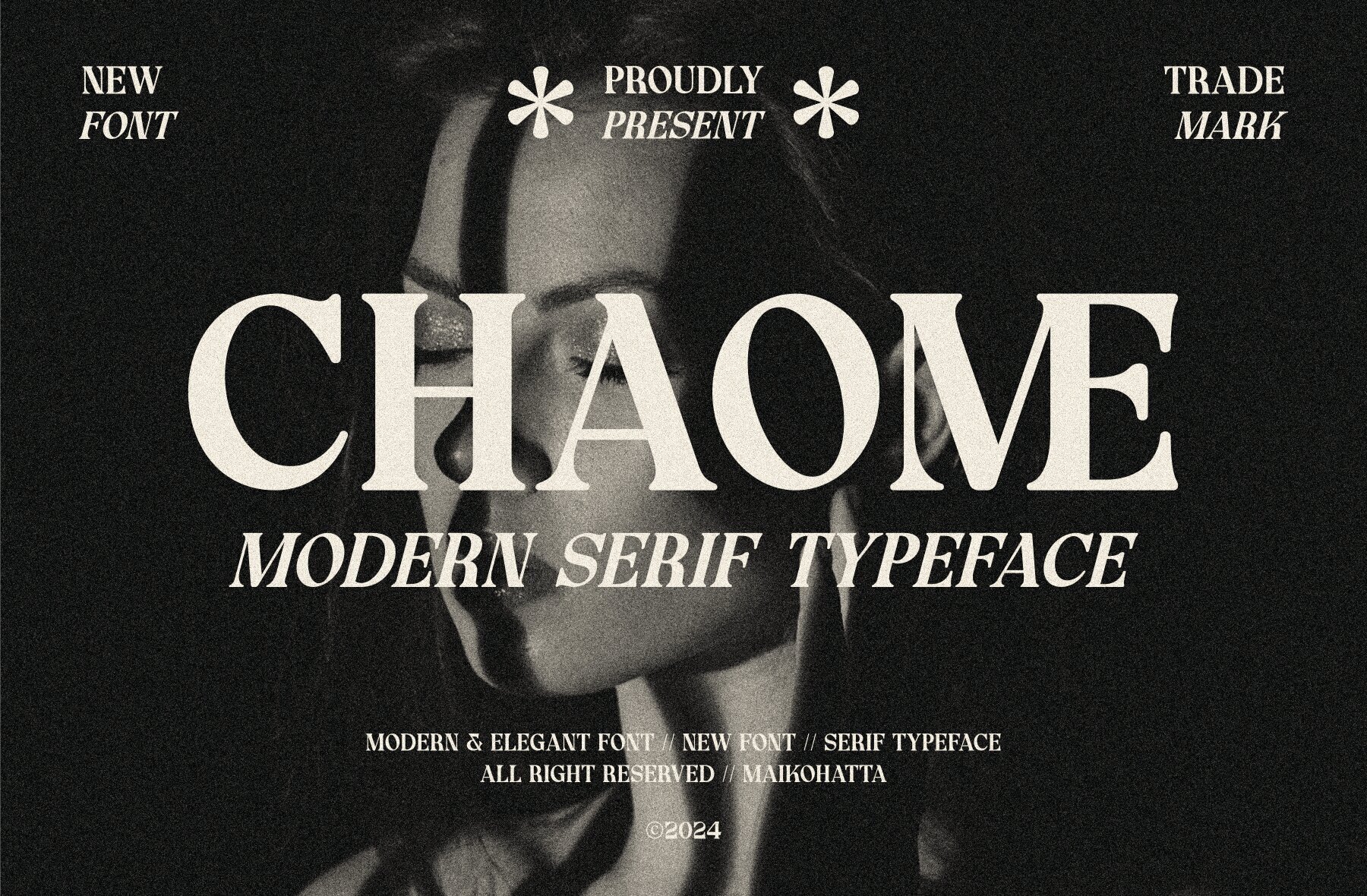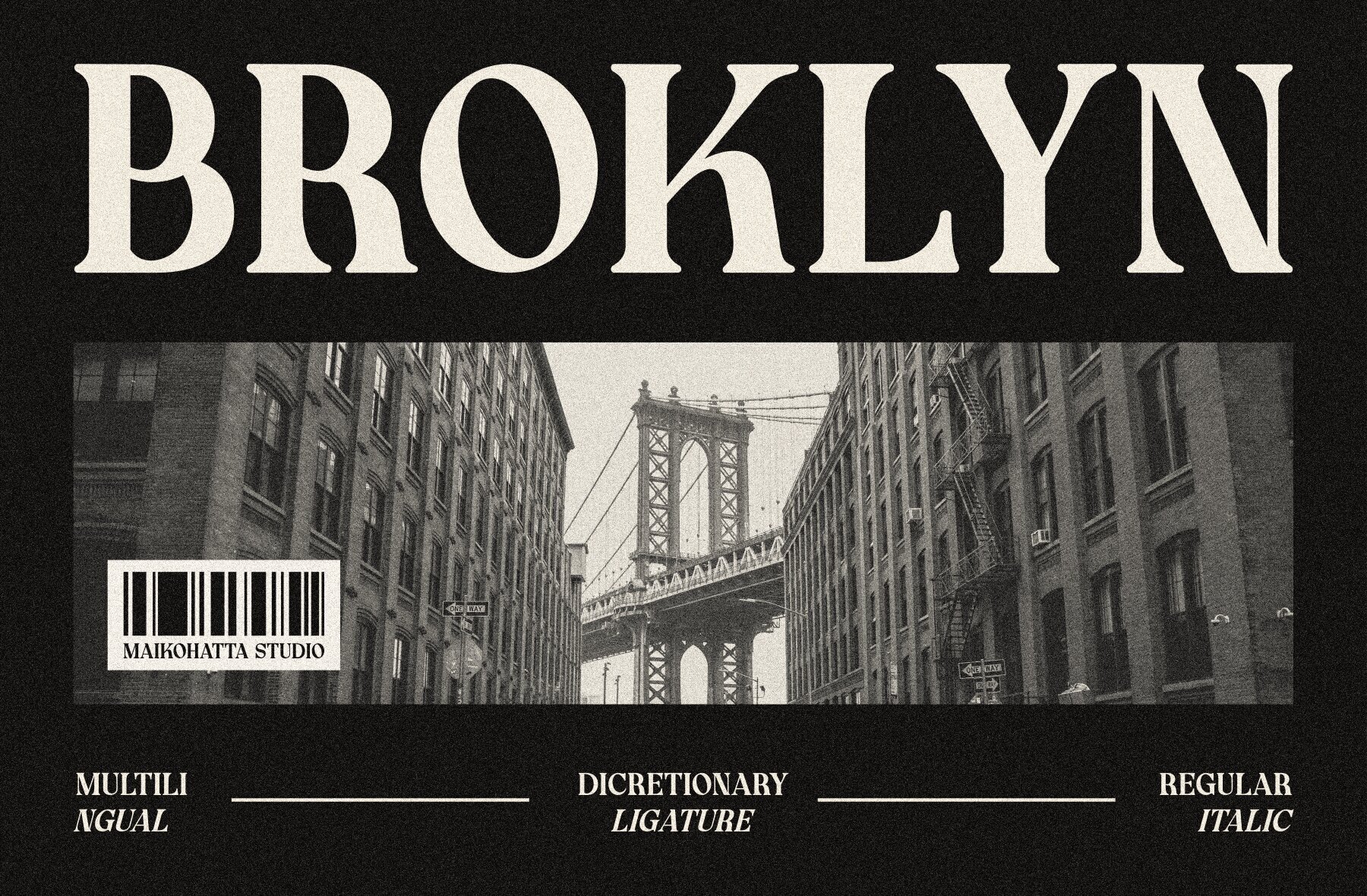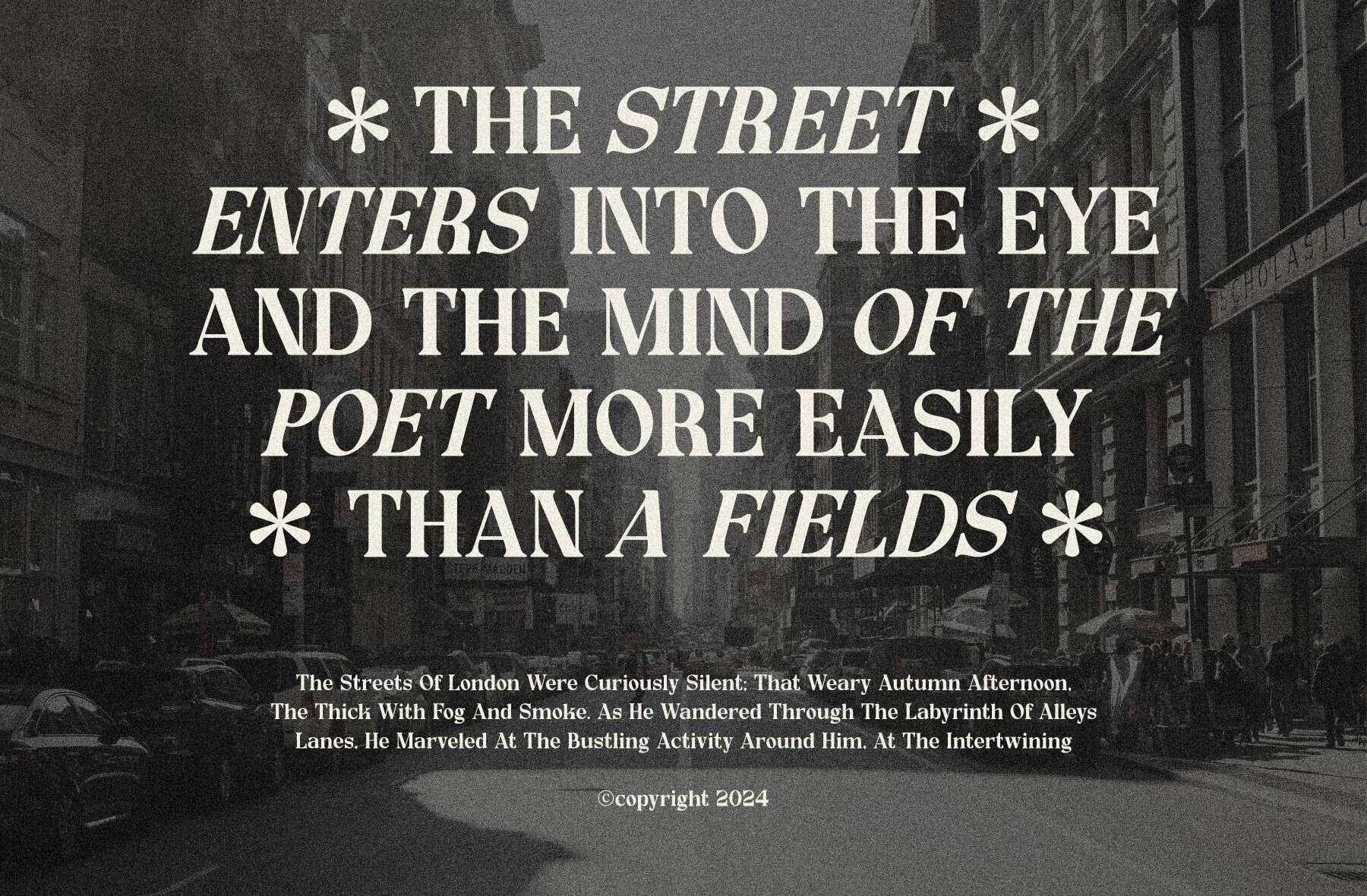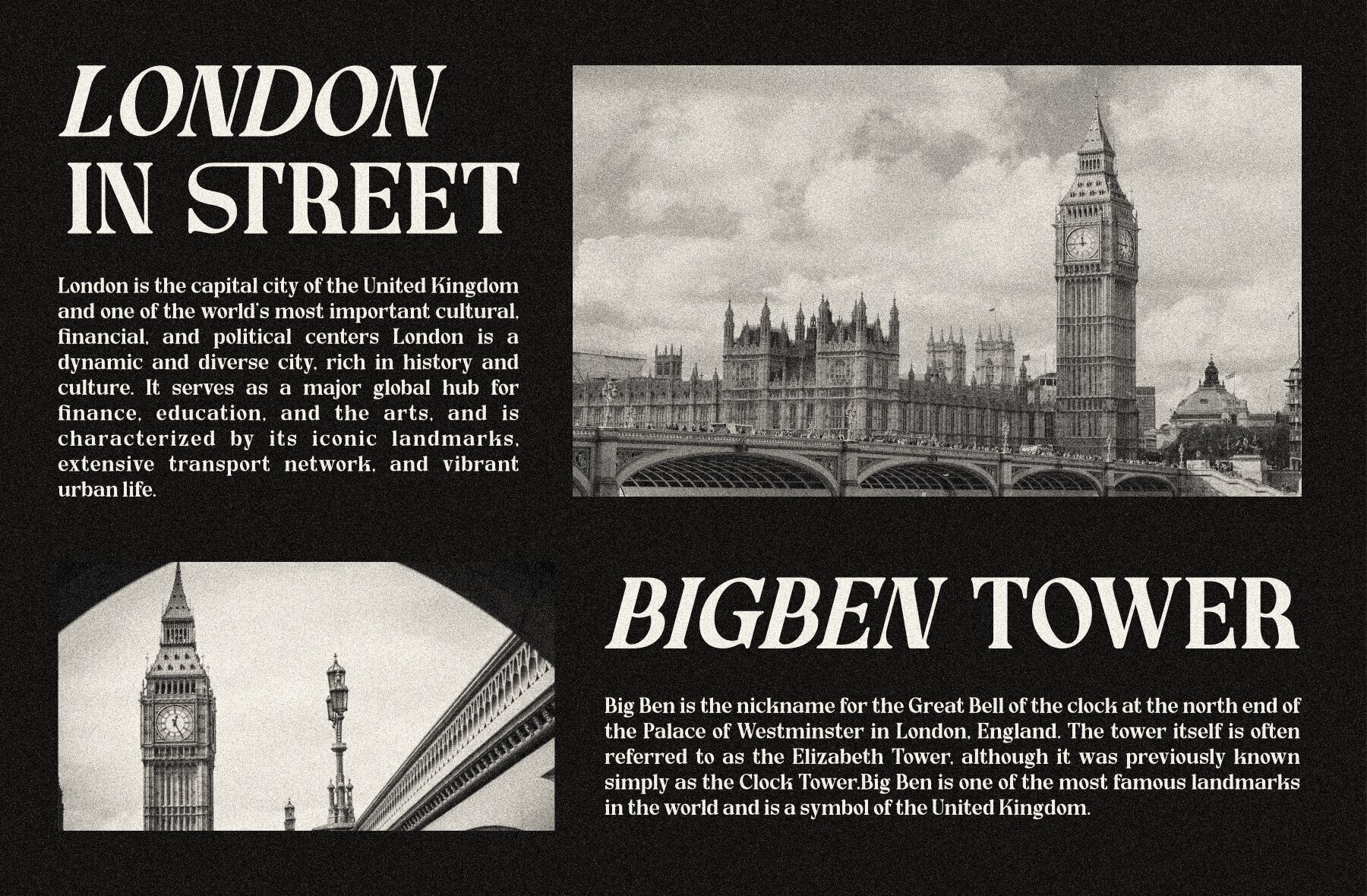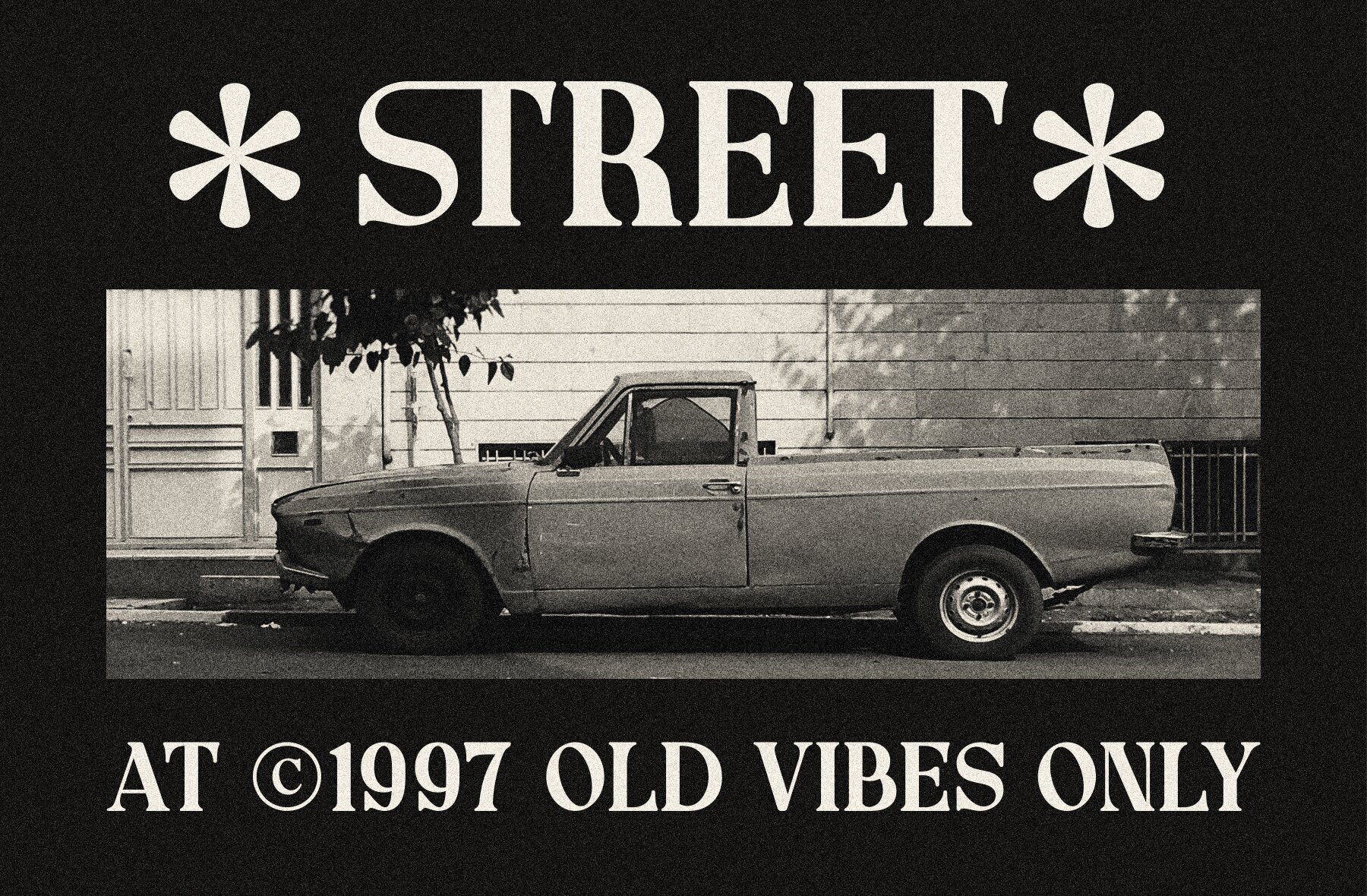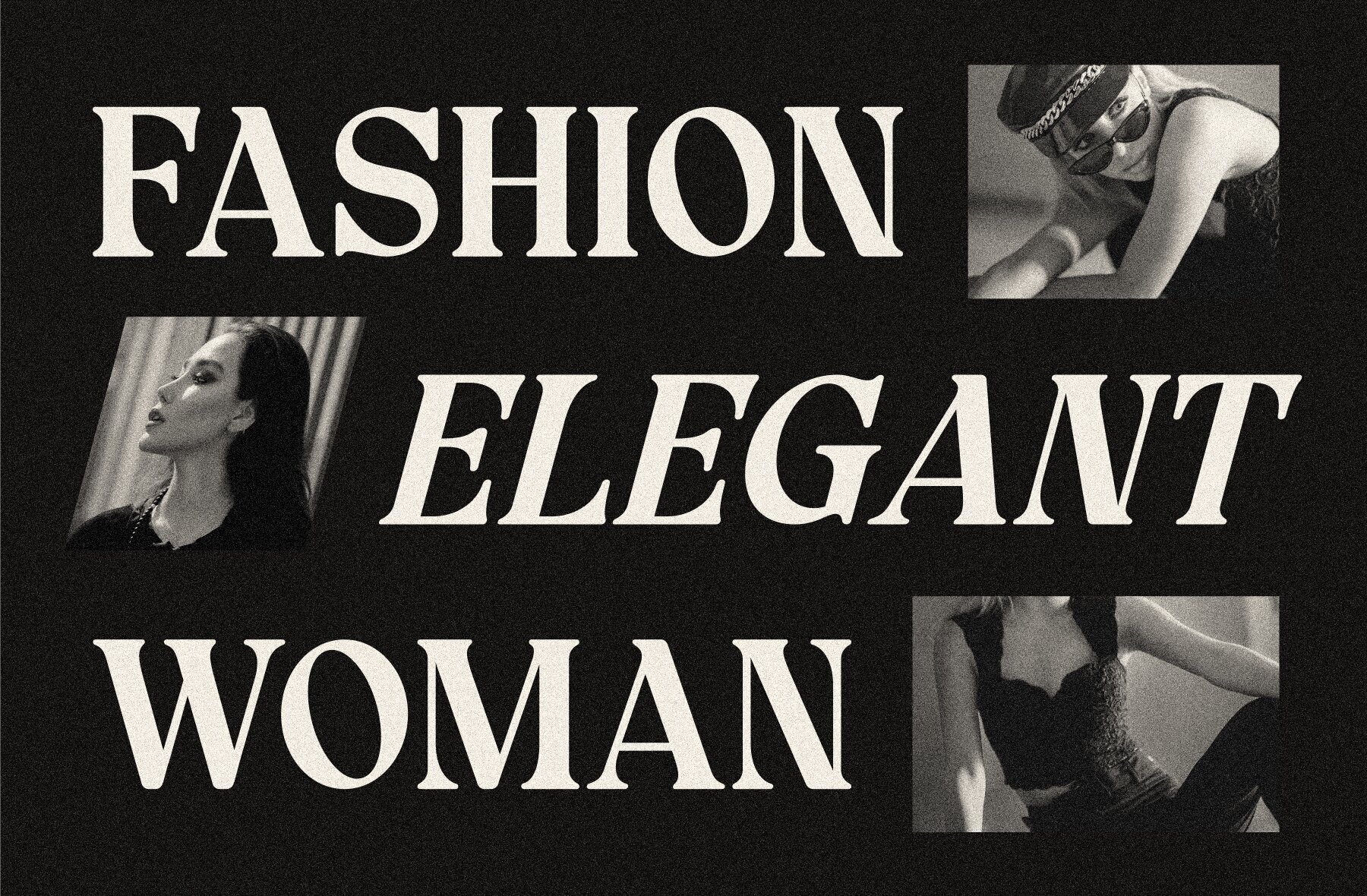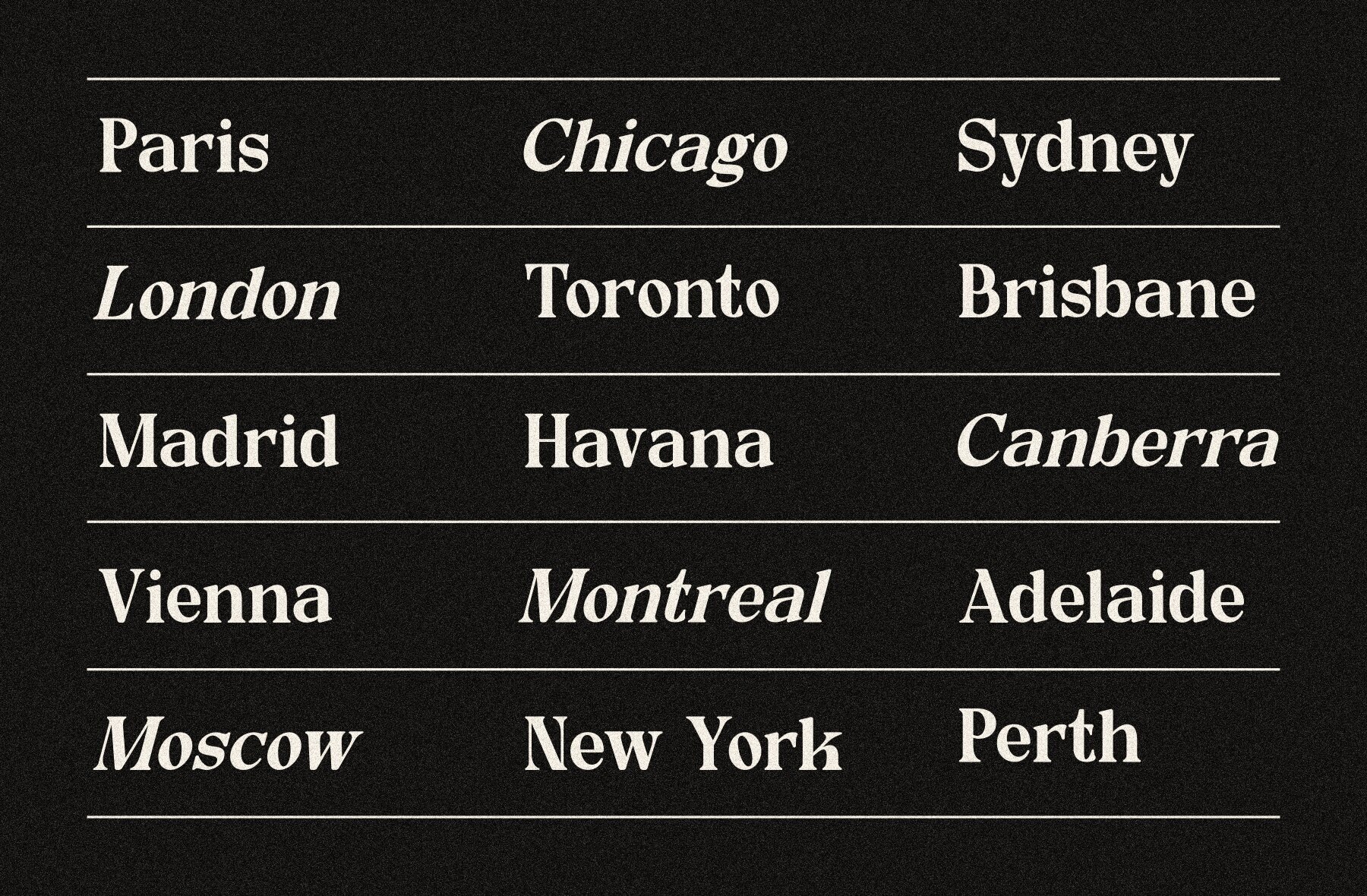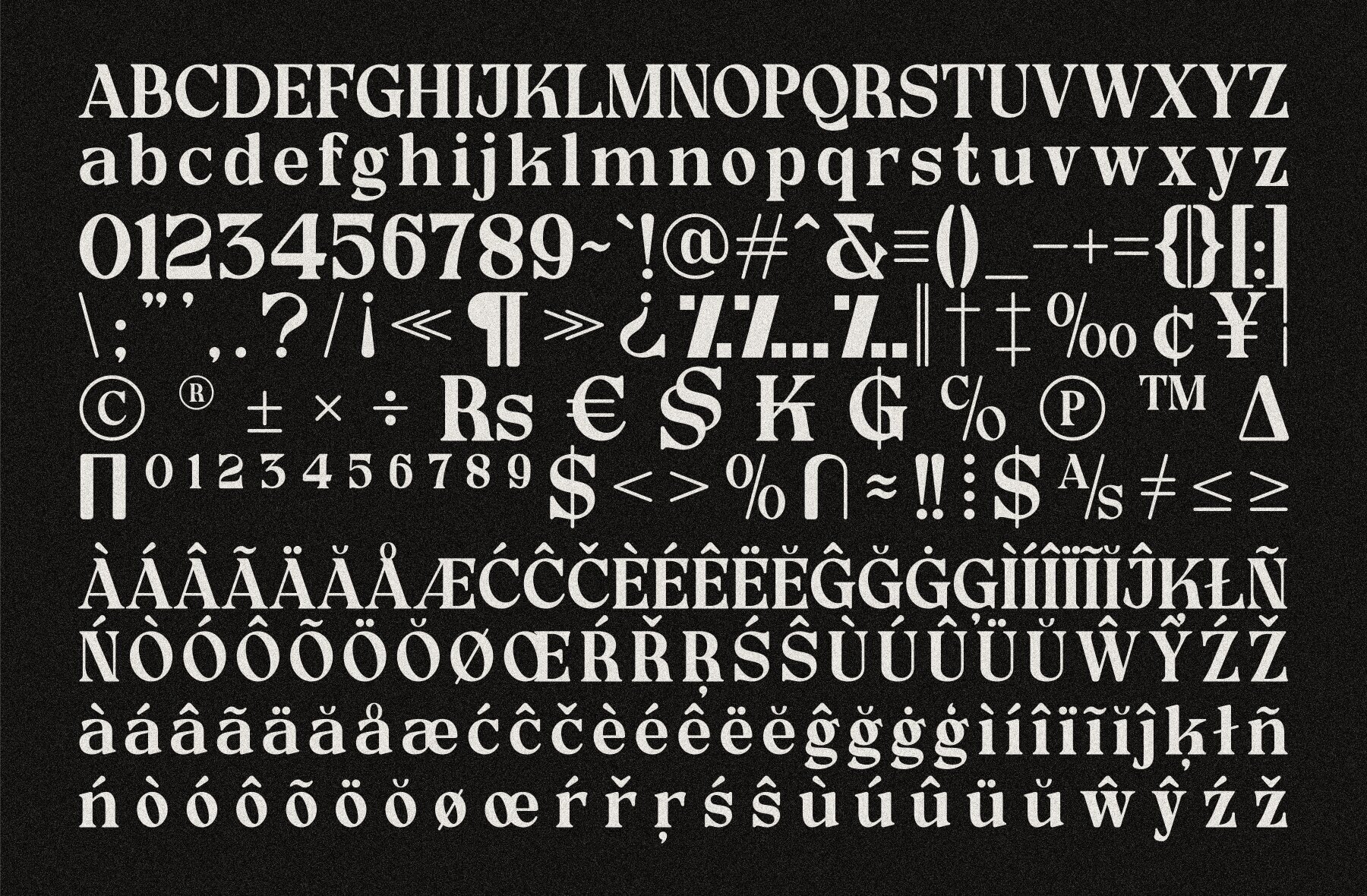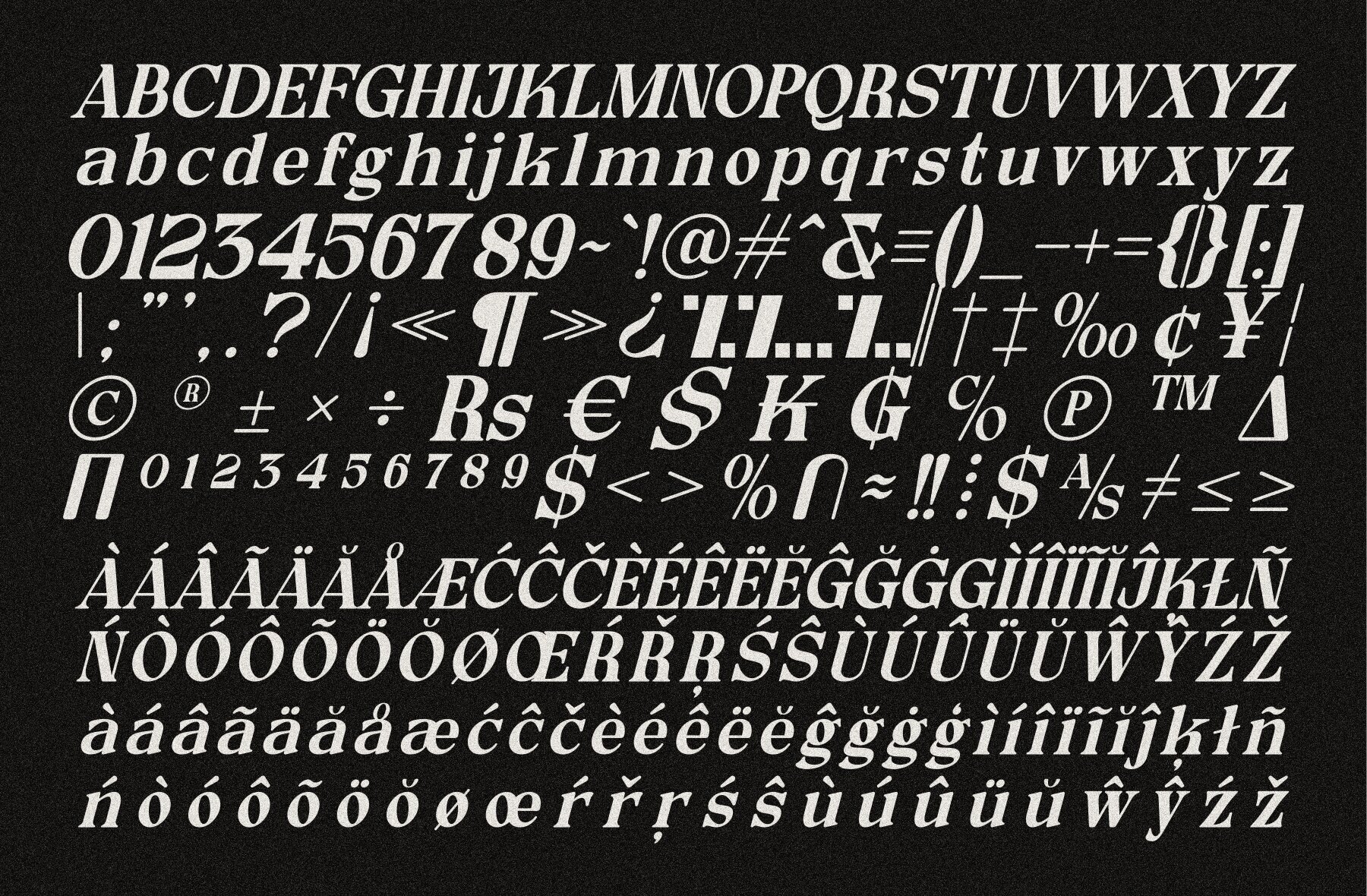
Chaome Font
Experience a perfect blend of stroke thickness and fineness with Chaome, a modern serif typeface designed by Gilang Ternadho. Featuring bold distinctions between thick and thin lines, this font is understated yet striking. Chaome includes uppercase and lowercase characters, multilingual support, and ligatures, making it an ideal choice for clear and attractive visuals.